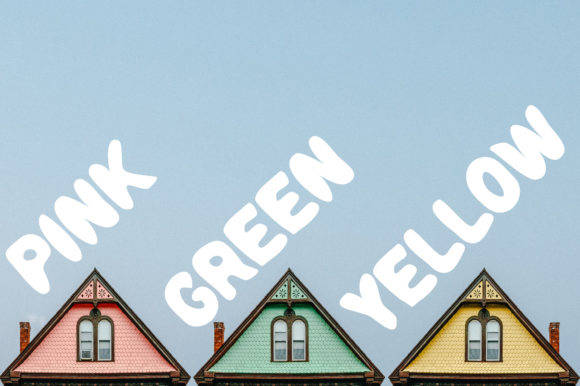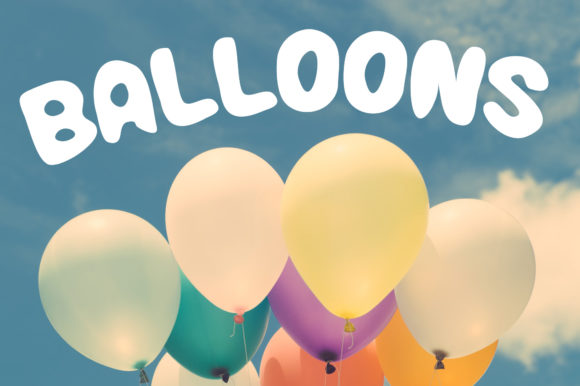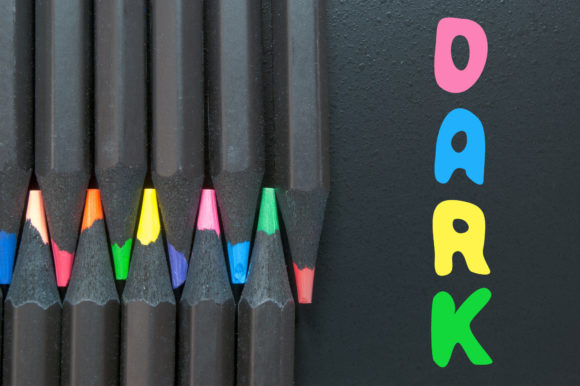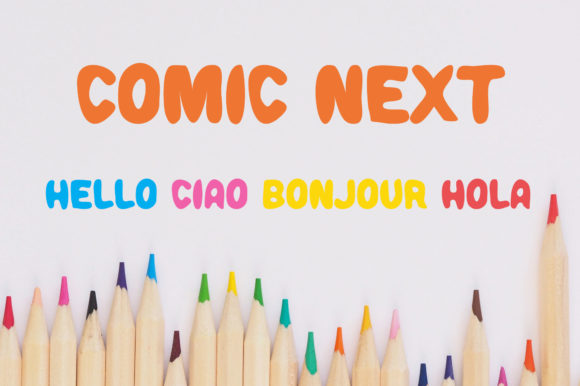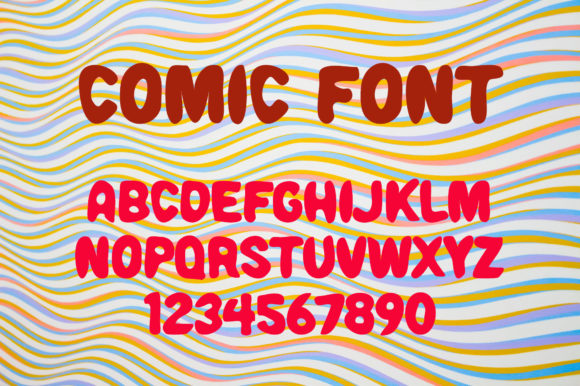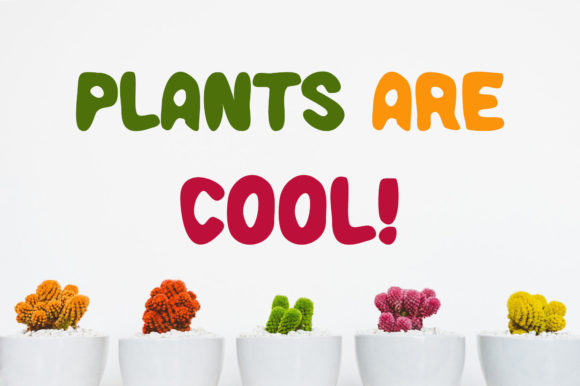
The Ultimate Display Font: Comic Next
Have you ever been in the middle of a design project, and suddenly, you’re stuck on finding the perfect font? I recall a particularly frustrating experience while working on a client’s branding project. The client wanted a bold, playful, and eye-catching font that would make their brand stand out. After hours of scouring through font libraries, I stumbled upon Comic Next – a chunky lettered and authentic display font that instantly elevated my design. In this article, I’ll share my experience with Comic Next, its features, and how to make the most of it in your creative projects.
An Honest Review of Comic Next
What I Love About Comic Next
- ✨ Unique and Authentic Style: Comic Next boasts a distinctive, hand-crafted look that’s perfect for making a statement.
- ✅ Highly Legible: Despite its chunky design, Comic Next remains surprisingly readable, even at smaller sizes.
- 💥 Attention-Grabbing: This font is sure to turn heads and add a touch of playfulness to your designs.
While Comic Next is an excellent font, it’s not without its quirks. For instance:
- 🤔 Limited Use Cases: Due to its bold and playful nature, Comic Next might not be the best fit for body text or more formal designs.
- ⚠️ Glyph Limitations: Some users have reported limited glyph options, which might restrict its use in multilingual projects.
Unlocking OpenType Features
The Backstory of Comic Next
Comic Next was designed with the intention of creating a bold, attention-grabbing font that’s both authentic and fun. The designer aimed to craft a font that would evoke a sense of playfulness and creativity, making it perfect for designers, crafters, and creative hobbyists looking to add a unique touch to their projects.
| Author | Vladimir Carrer |
Q: What type of projects is Comic Next best suited for?
A: Comic Next is ideal for designs that require a bold, playful, and eye-catching font, such as titles, headings, branding, and creative projects.
Q: Is Comic Next suitable for body text?
A: Due to its bold and playful nature, Comic Next might not be the best fit for body text. It’s better suited for titles, headings, and short paragraphs.